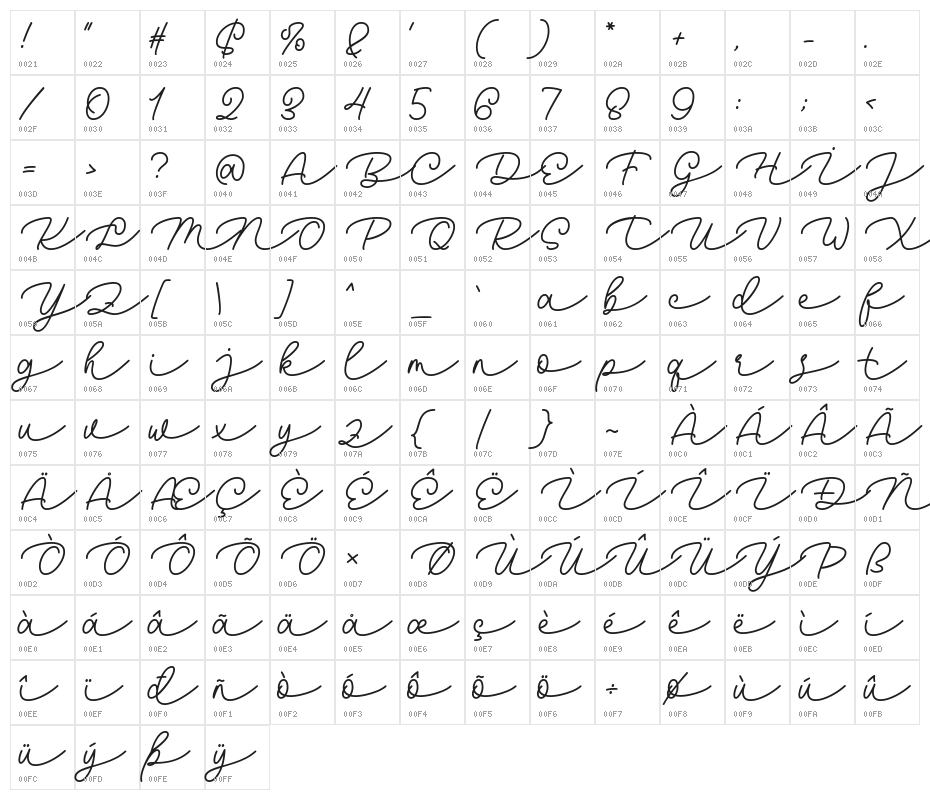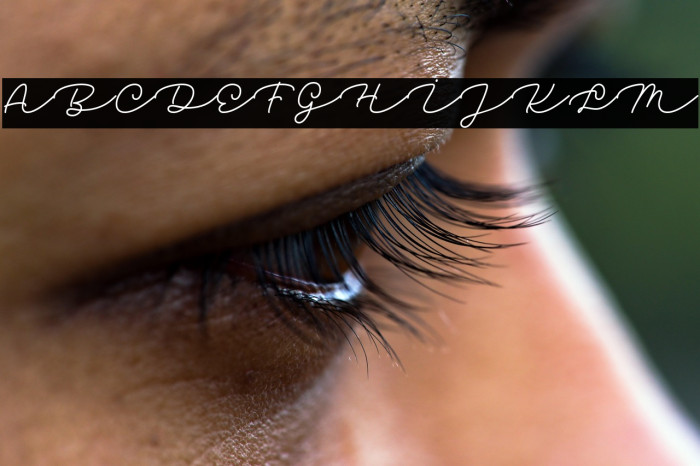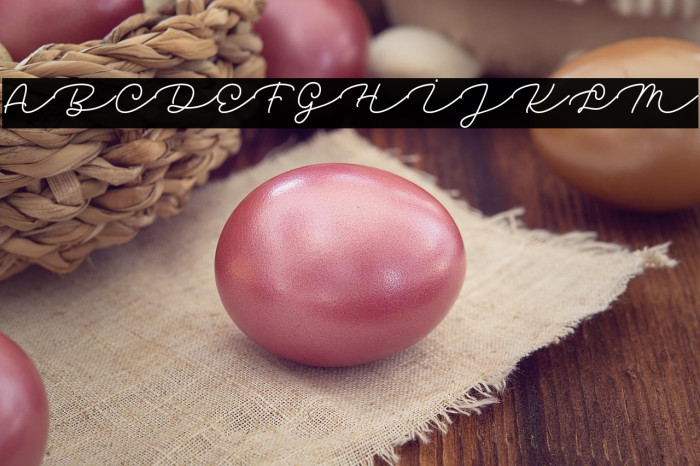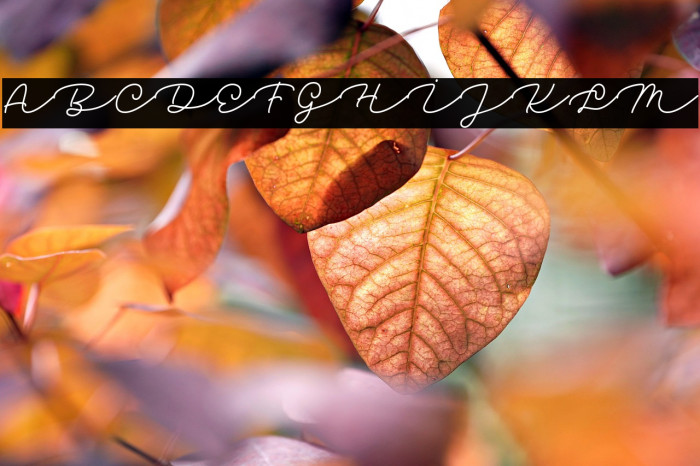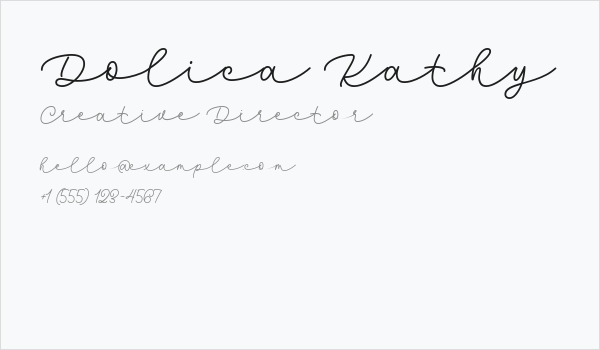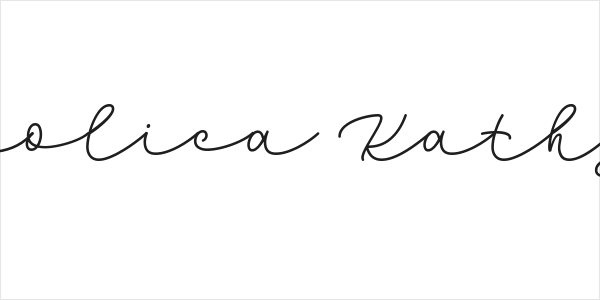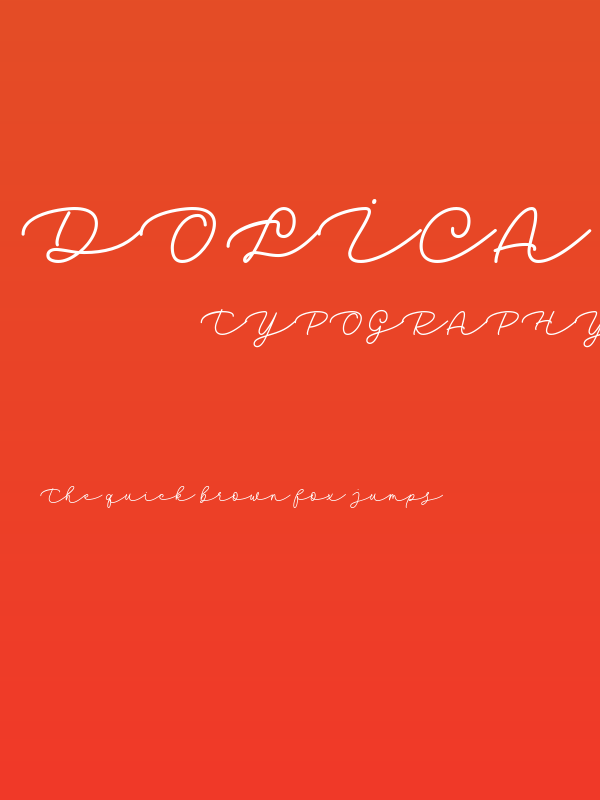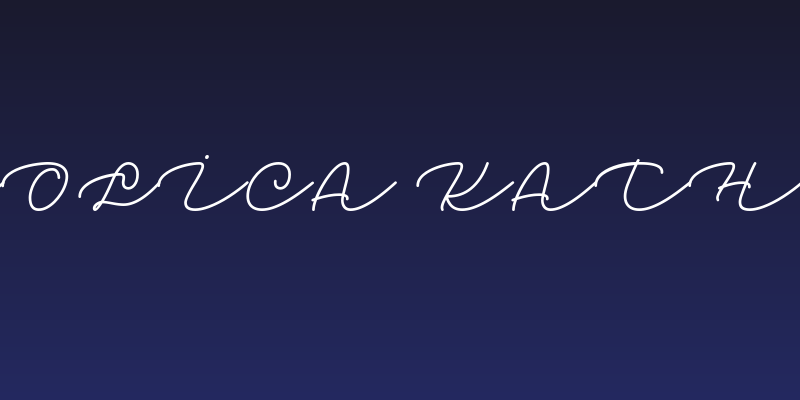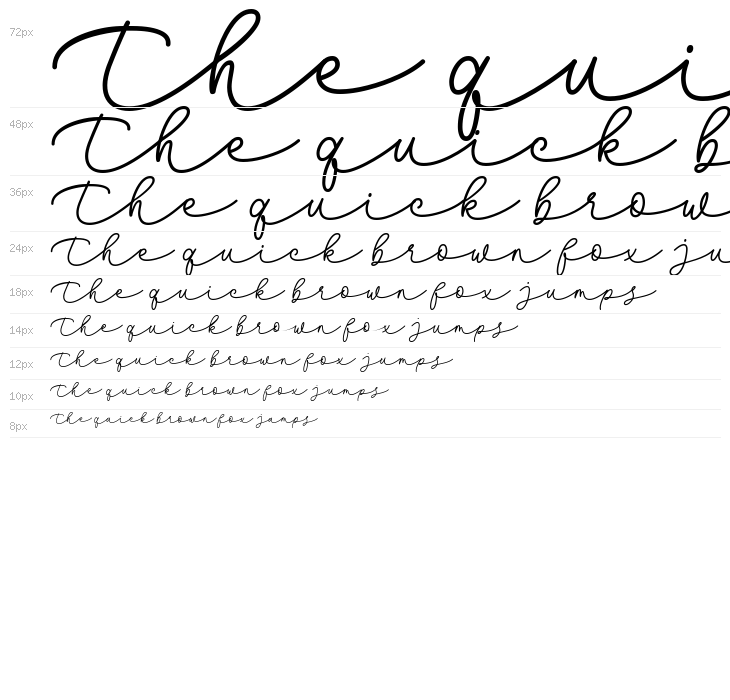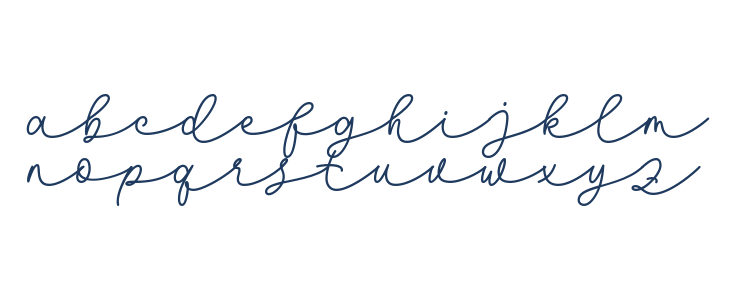
Dolica Kathy Font
Dolica Kathy Description
This font features a flowing, cursive style that exudes elegance and sophistication. The letters are interconnected with smooth, continuous strokes, giving it a handwritten appearance. The uppercase letters maintain a consistent height, while the lowercase letters have a slight slant, enhancing the fluidity of the script. The numerals are bold and clear, with a slight curvature that complements the overall design. Special characters are crafted with the same attention to detail, ensuring a cohesive look across all glyphs. This font is perfect for projects that require a personal touch, such as invitations, greeting cards, and branding materials.
| Overall Style | Elegant, Handwritten |
| Proposed Projects | Ideal for wedding invitations, personal branding, greeting cards, and elegant logos. |